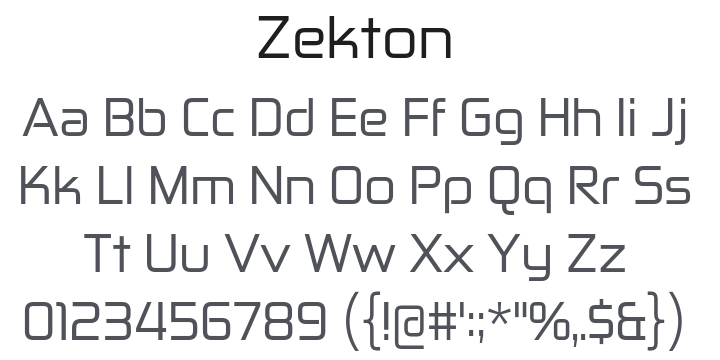
Zekton Font
About Zekton
Zekton is a modular, square-lined sans serif built for clarity in high-tech environments. Its geometric rhythm and engineered balance make it ideal for interfaces, branding, and display use where precision matters. With seven weights, two widths, and italics, forty-eight styles in total, it offers fine control across everything from data visuals to cinematic titles. Suited to technology, aerospace, and gaming applications, Zekton projects confidence and modernity while supporting a wide range of languages, including Cyrillic. Clean, adaptable, and forward-looking, it’s typography engineered for the digital frontier.